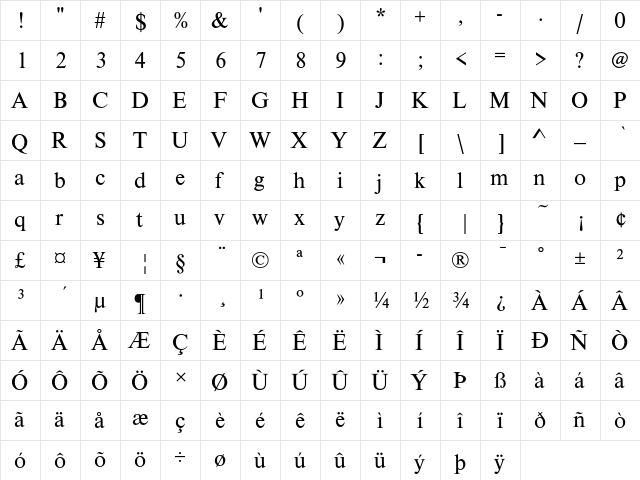
Nimbus Roman D Regular
Design Context for Nimbus Roman D Typeface
Nimbus Roman D offers clean, dependable letterforms without strong stylistic allegiance, making it a practical choice for designers who need flexibility.
Pro Tip: Pair Nimbus Roman D with a font of contrasting weight or personality to build a more expressive typographic hierarchy.